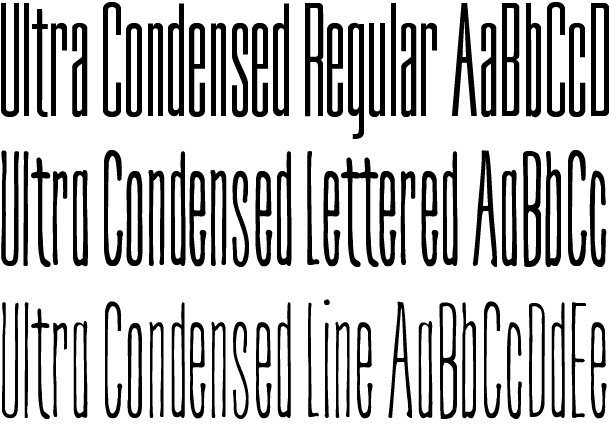
Ultra Condensed
Ultra Condensed is a 3 font family with a full character set. Ultra Condensed is a remastering of Tall Skinny Condensed from 1999 which continues to be a favorite. While similar the fonts are not interchangable. Shapes of some letters have changed, kerning…